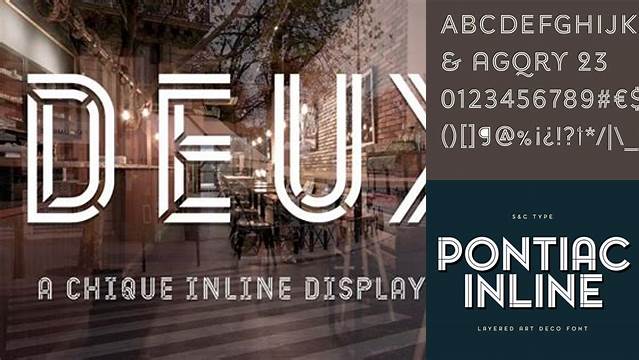
Free Inline Fonts: Download And Use Guide
Hey guys! Are you on the hunt for some awesome inline fonts? You've come to the right place! Inline fonts, with their distinctive inner lines, can add a unique and stylish touch to your design projects. Whether you're working on a logo, a poster, or a website, the right inline font can make all the difference. In this comprehensive guide, we'll dive deep into the world of inline fonts, exploring what they are, where to find them for free, and how to use them effectively in your projects. We'll also touch on some tips and tricks to help you make the most of these fantastic fonts. So, buckle up and let's get started!
What are Inline Fonts?
So, what exactly are inline fonts? Well, imagine a regular font, but with extra lines running inside the main strokes of the letters. These lines create a sort of 'outline within the outline' effect, giving the font a cool, vintage, or even futuristic look, depending on the specific design. Inline fonts are super versatile and can be used in a variety of contexts. They're particularly popular for headlines, logos, and other display purposes where you want to make a statement. The internal lines add depth and visual interest, making the text stand out from the background. Think of old-school movie posters, vintage signage, or even modern tech branding – you'll often find inline fonts playing a starring role. The beauty of inline fonts lies in their ability to blend classic aesthetics with contemporary design needs, offering a unique way to capture attention and convey a specific mood or message. They can evoke nostalgia, project a sense of craftsmanship, or even convey a cutting-edge, technological vibe. It all depends on the font's specific style and how you choose to use it. The key to using inline fonts effectively is to consider the overall design context. Because they are visually quite striking, it's essential to pair them with simpler fonts for body text to maintain readability and balance. Overusing inline fonts can lead to a cluttered and overwhelming design, so it's best to reserve them for key elements where you want to create impact. In addition, the color scheme and background also play a crucial role in how the inline font is perceived. A high-contrast color palette can make the internal lines pop, while a more muted scheme might create a subtle, sophisticated effect. Understanding the nuances of inline fonts and how they interact with other design elements will allow you to harness their power and create truly memorable visuals.
Where to Find Free Inline Fonts
How to Use Inline Fonts Effectively
Okay, you've got your hands on some awesome inline fonts, but how do you use them effectively? The key is to understand the unique characteristics of inline fonts and how they interact with other design elements. These fonts, with their internal lines and distinctive style, can add a lot of personality to your projects, but they also require a bit of finesse to use well. One of the most important things to consider is readability. Inline fonts, due to their intricate design, can sometimes be difficult to read in large blocks of text. This is why they are generally best suited for headlines, logos, and other display purposes where you want to make a statement. Avoid using inline fonts for body text or lengthy paragraphs, as this can strain the reader's eyes and make your content less accessible. When pairing inline fonts with other fonts, it's generally a good idea to choose simpler, more neutral fonts for body text. This creates a visual hierarchy and prevents your design from becoming too cluttered or overwhelming. Think of inline fonts as the star of the show – they should stand out, but not overshadow the supporting cast. For example, you might pair a bold inline font for your headline with a clean sans-serif font for your body text. This combination provides a nice contrast and ensures that your message is clear and easy to read. Color is another crucial factor to consider when using inline fonts. The internal lines of these fonts can create interesting visual effects, especially when used with contrasting colors. Experiment with different color combinations to see what works best for your design. A high-contrast color palette can make the inline details pop, while a more subtle color scheme might create a more refined, understated look. Think about the overall mood and message you want to convey and choose your colors accordingly. The size of the inline font also plays a significant role in its effectiveness. In general, inline fonts look best when used at larger sizes, as this allows the internal lines to be clearly visible. When used at smaller sizes, the lines might become too thin and difficult to see, which can diminish the font's impact. Consider the context in which the font will be used and choose a size that is appropriate for the situation. Finally, don't be afraid to experiment! Inline fonts come in a wide variety of styles, from vintage and retro to modern and futuristic. Try out different fonts and see how they look in your designs. Play with different color combinations, sizes, and pairings with other fonts. The more you experiment, the better you'll become at using inline fonts effectively and creating stunning visuals.
Tips for Choosing the Right Inline Font
Choosing the right inline font can feel like a daunting task, especially with so many options available. But don't worry, guys! With a few helpful tips, you can narrow down your choices and find the perfect font for your project. The first thing to consider is the overall style and tone of your design. Are you going for a vintage, retro vibe? Or something more modern and sleek? There are inline fonts to suit just about any aesthetic, so it's important to choose one that aligns with your vision. For a vintage feel, look for inline fonts with classic serifs and slightly distressed textures. These fonts often evoke a sense of nostalgia and craftsmanship. For a more modern look, opt for sans-serif inline fonts with clean lines and geometric shapes. These fonts tend to convey a sense of sophistication and innovation. Another important factor to consider is the readability of the inline font. As we discussed earlier, inline fonts can sometimes be challenging to read in large blocks of text, so it's crucial to choose one that is legible at your intended size. Look for inline fonts with clear, well-defined lines and adequate spacing between the letters. Avoid fonts with overly thin lines or intricate details, as these can become difficult to see, especially at smaller sizes. The intended use of the font is also a key consideration. If you're using the inline font for a logo, you'll want to choose one that is memorable and distinctive. A unique and eye-catching font can help your brand stand out from the competition. If you're using the font for a headline, readability is paramount. Choose a font that is easy to read at a glance, even from a distance. If you're using the font for a poster or other large-format design, you'll have more flexibility in terms of size and style. You can experiment with bolder, more decorative inline fonts to create a strong visual impact. Don't forget to think about the other fonts you'll be using in your design. As we mentioned earlier, it's generally a good idea to pair inline fonts with simpler, more neutral fonts for body text. This creates a visual balance and prevents your design from becoming too overwhelming. Consider the color palette you'll be using in your design as well. Certain inline fonts look better with specific color combinations. Experiment with different colors to see what works best for your chosen font. Finally, don't be afraid to try out different fonts and see how they look in your design. Download a few different inline fonts and experiment with them in your design software. This is the best way to get a feel for how they look and how they work with other design elements. With a little bit of experimentation, you're sure to find the perfect inline font for your project.
So there you have it, guys! A comprehensive guide to inline fonts and how to use them effectively. We've covered what inline fonts are, where to find them for free, how to use them in your designs, and some tips for choosing the right font for your project. Inline fonts are a fantastic way to add a unique and stylish touch to your design work. Whether you're working on a logo, a poster, or a website, the right inline font can make all the difference. Just remember to consider readability, pairing with other fonts, color, and size when using them. And don't be afraid to experiment and have fun! With a little bit of practice, you'll be creating stunning designs with inline fonts in no time. Now go out there and create something amazing!